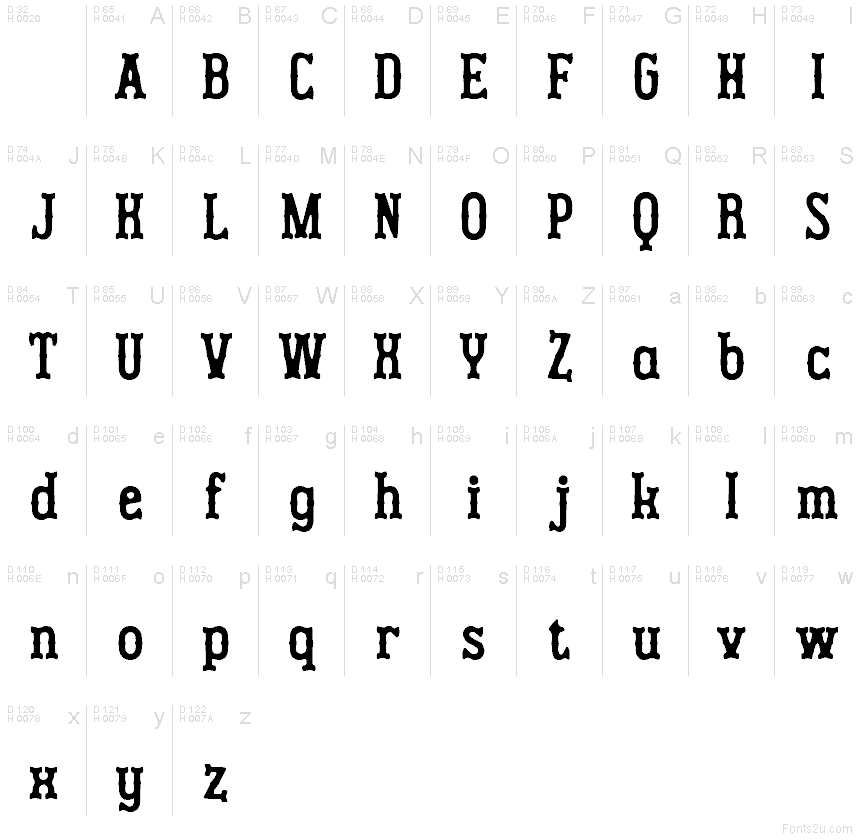
CSBourneDrawn-Regular Demo
CS Bourne Drawn font by Craft Supply Co. masters a rugged and worn display style inspired by the wild-wild-west. The condensed width of its letters creates more impact with less, while the vintage influence evokes some true sense of nostalgia. In fact, using this option feels like incorporating something historical as much as visual into a specific design.